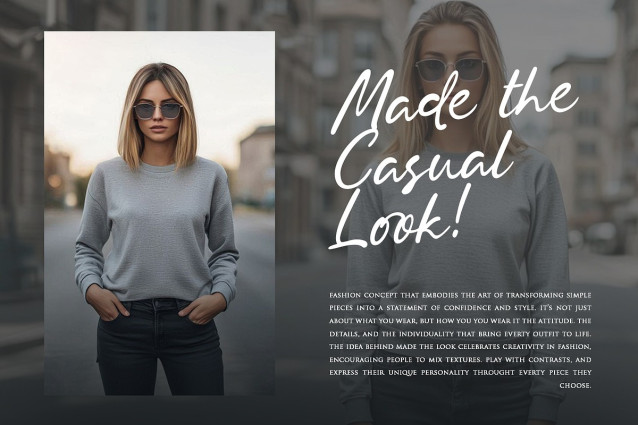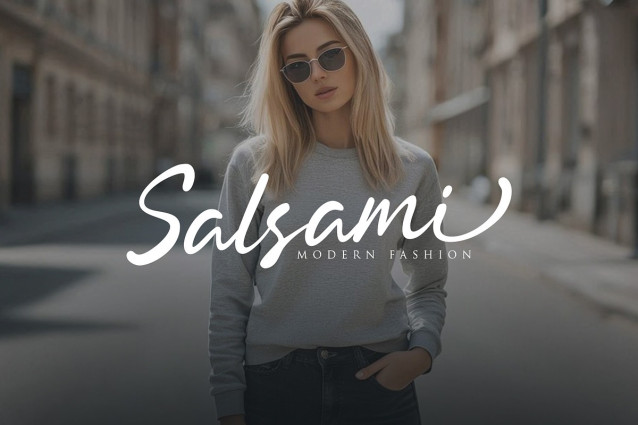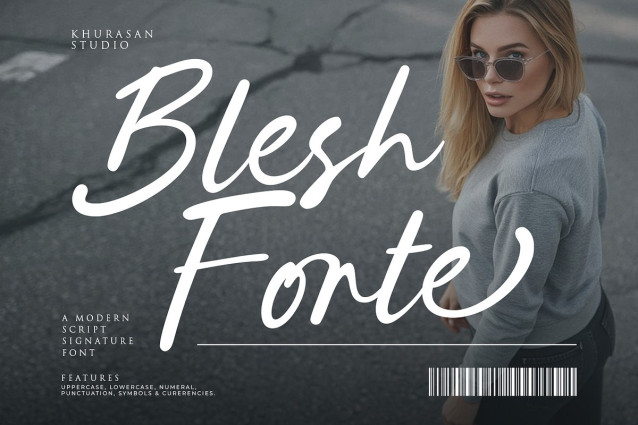
Blesh Forte Font
Blesh Forte Font is a script signature font, designed to capture the beauty of real hand-lettering. Every stroke feels alive — smooth, expressive, and full of personality. It delivers an authentic handwritten charm that makes your designs feel warm, stylish, and premium.
Perfect for logos, branding, product packaging, quotes, social media posts, wedding designs, and creative projects, Blesh Forte adds a personal and artistic touch that instantly stands out.